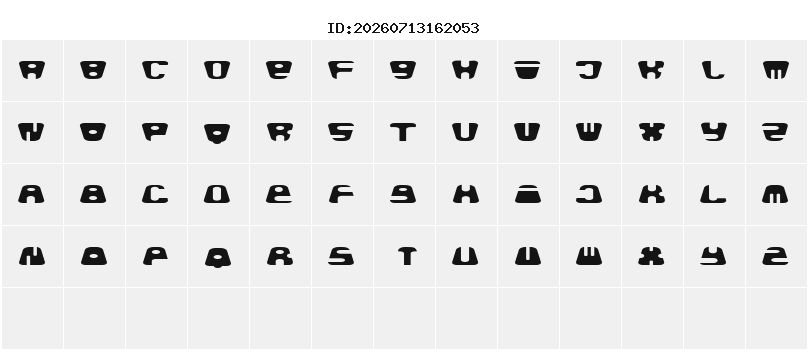
baldhead Preview
• Font Name: baldhead
• Font ID: Macromedia Fontographer 4.1.2 baldhead
• Full Font Name: baldhead
• Version: Macromedia Fontographer 4.1.2 31.08.1998
• PostScript Name: Baldhead
• Character Count: 98
About baldhead.ttf
baldhead.ttf is a modern, elegant sans-serif font designed for ultimate readability and visual harmony. Perfect for branding, headlines, web design, and print materials.